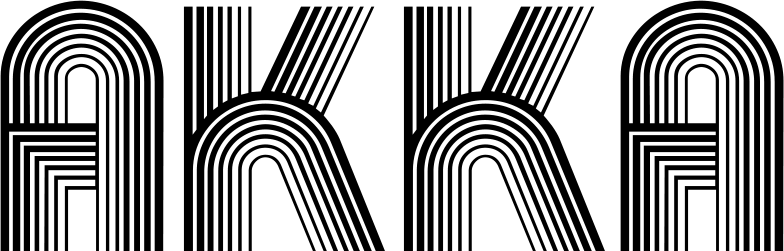
Akka Font
Akka font is one of the retro designs that you have seen in many poker card packages, casino ads, and arcade games. The parallel lines make each bold character and number similar to music discs. So this groovy font is the best choice for designing a classical music cover.
This ‘90s font has no lowercase letters, and you can have a different combination for designing postcards and advertising casino games with the help of fonts.